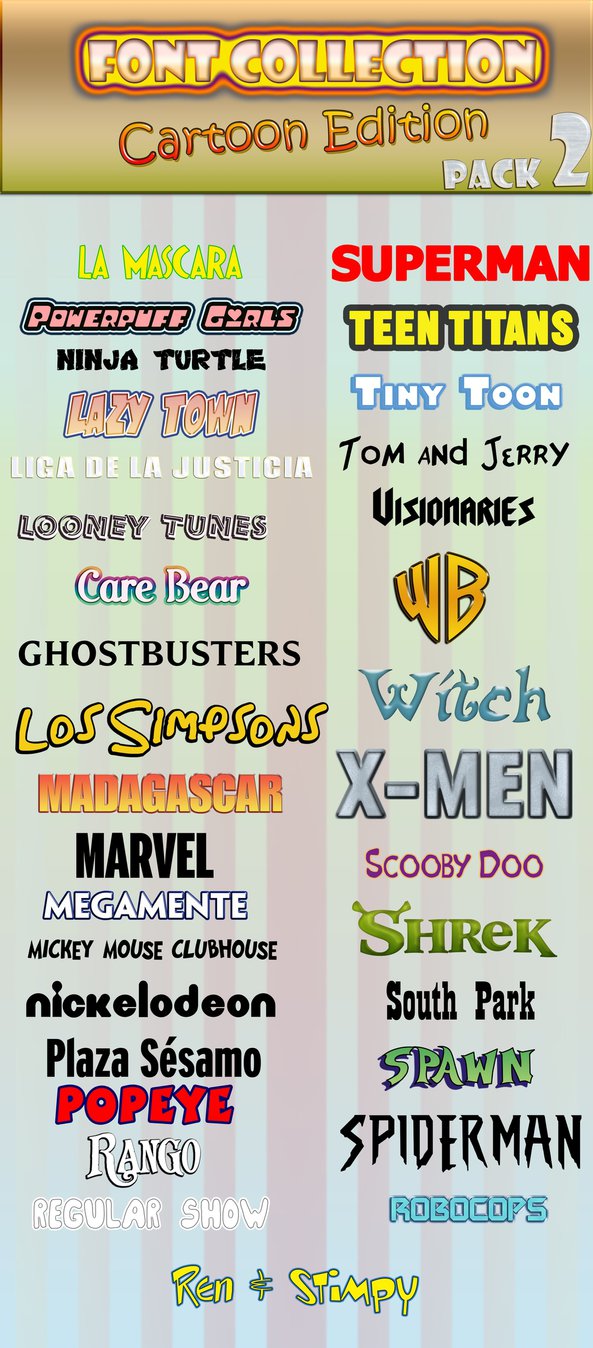
Cartoon Fonts Collection – Pack 2
A big collection of 35+ cartoon & anime fonts including X-men, transformers, Tom and Jerry, superman, spiderman, south park, marvel, etc.